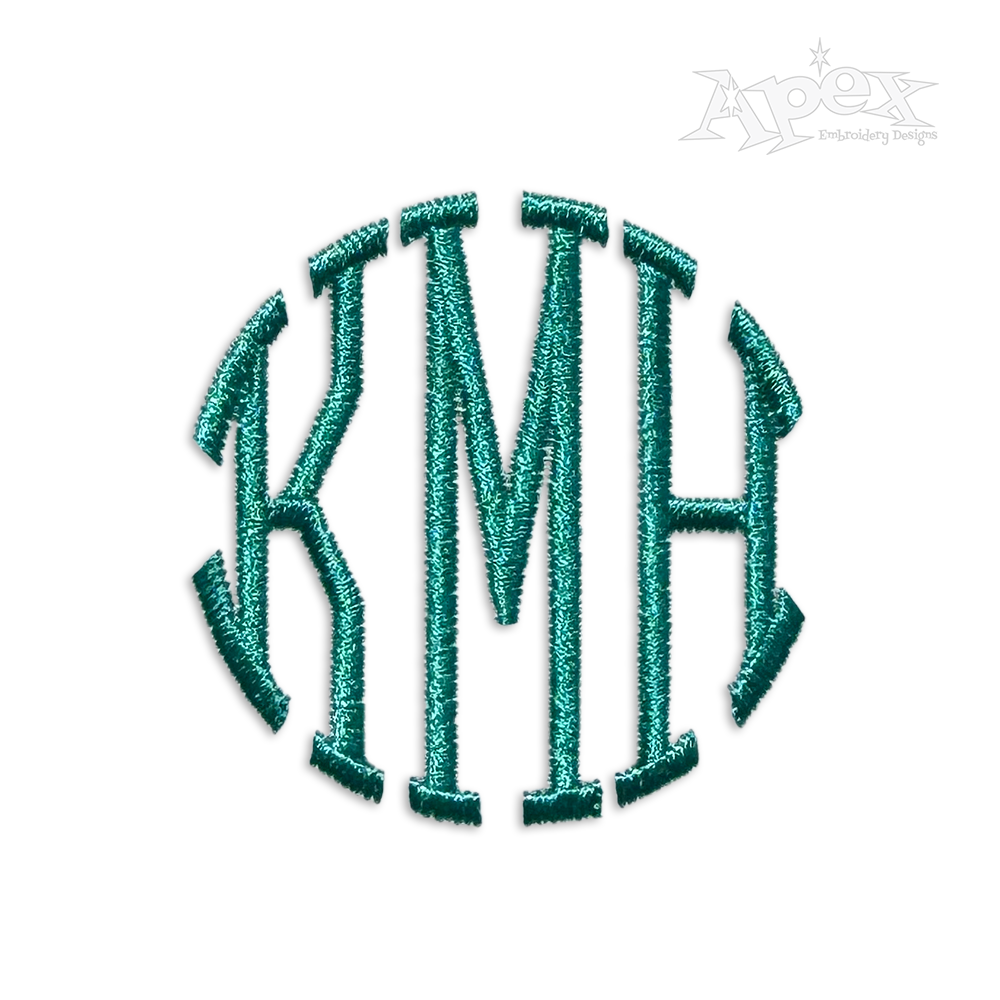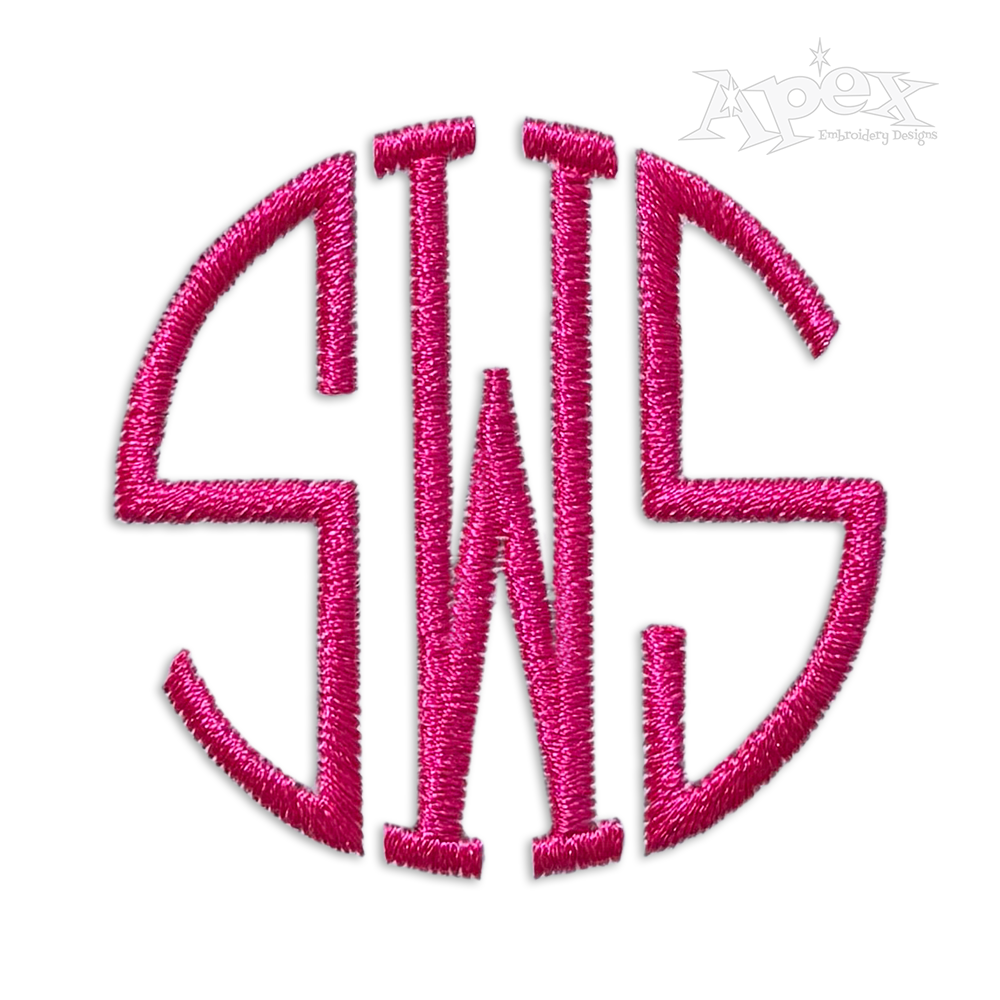
Circle Sports Embroidery Fonts
Born from a love of vintage collegiate apparel and spirited tournament sidelines, the Circle Sports Embroidery Font captures the vibrant energy of varsity athletics with crisp, tailored precision. When digitizing this collection, we sought to balance the bold, commanding presence of traditional stadium typography with the balanced symmetry of a classic three-letter circular crest. The result is a spirited monogram alphabet that lends an immediate sense of team pride, athletic discipline, and bespoke style to every piece it adorns.
This athletic monogram alphabet arrives with complete left, center, and right letterforms designed to merge into a seamless round medallion, complemented by two optional circle frame styles that can be stitched as an accent border or omitted for an open aesthetic:
- Three-Part Monogram Layout: Full alphabets for left arc, center capital, and right arc positioning
Circle Sports Embroidery Fonts Craft & Letterform Details
The true beauty of a sports monogram lies in its mathematical balance and stitch performance. In digitizing the Circle Sports Embroidery Font, each letterform was engineered with custom satin stitch travel paths and carefully distributed density to prevent puckering on durable teamwear knits and textured nylon canvas. The outer flanking letters taper into gentle, arched outer curves while maintaining resolute, block-style inner angles, cradling the tall center letter to complete a clean circular silhouette. With the addition of two distinct exterior framing rings, you have the creative freedom to frame your letters in high-contrast team colors or showcase the lettering alone for a minimalist, modern athletic finish.